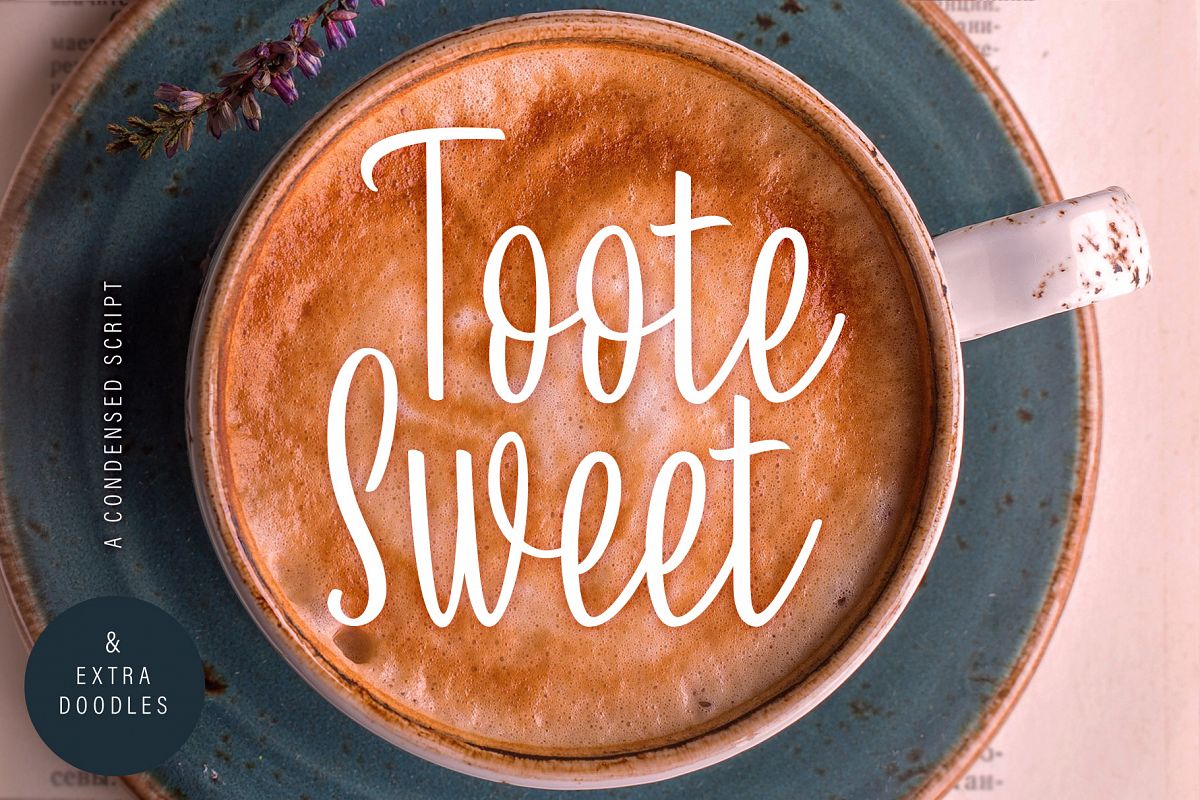
Toote Sweet | A Condensed Script & Extra Doodles
Toote Sweet is a clean & lean script font with a highly energetic vibe. Due to it’s upright and condensed letterforms, it can be easily used in big sizes even in the smallest of spaces.
With it’s playful attitude, Toote Sweet truly creates it’s own sunshine where there is none.
* MULTILINGUAL SUPPORT
* Comes with EXTRA DOODLES!